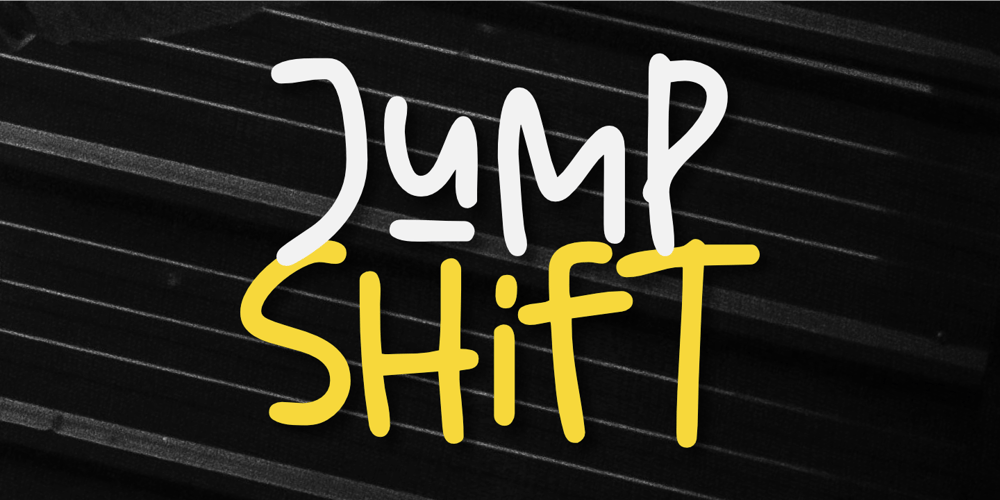
Jump Shift Font Family was designed by Aldy Sidik and published by Epiclinez. Jump Shift contains 1 styles and family package options. Unleash your creativity with Jump Shift, a handwritten font that adds a delightful twist to any project! This playful typeface captures attention and infuses your work with personality. Whether you’re designing eye-catching headlines, crafting a memorable logotype, or enhancing product packaging, Jump Shift brings an element of fun that communicates warmth, friendliness, and approachabilityJump Shift features :- Standard Latin- Numbers, symbols, and punctuations- Multilingual Support.- Fully accessible without additional design software- Simple Installations- Works on PC & MacThank You.